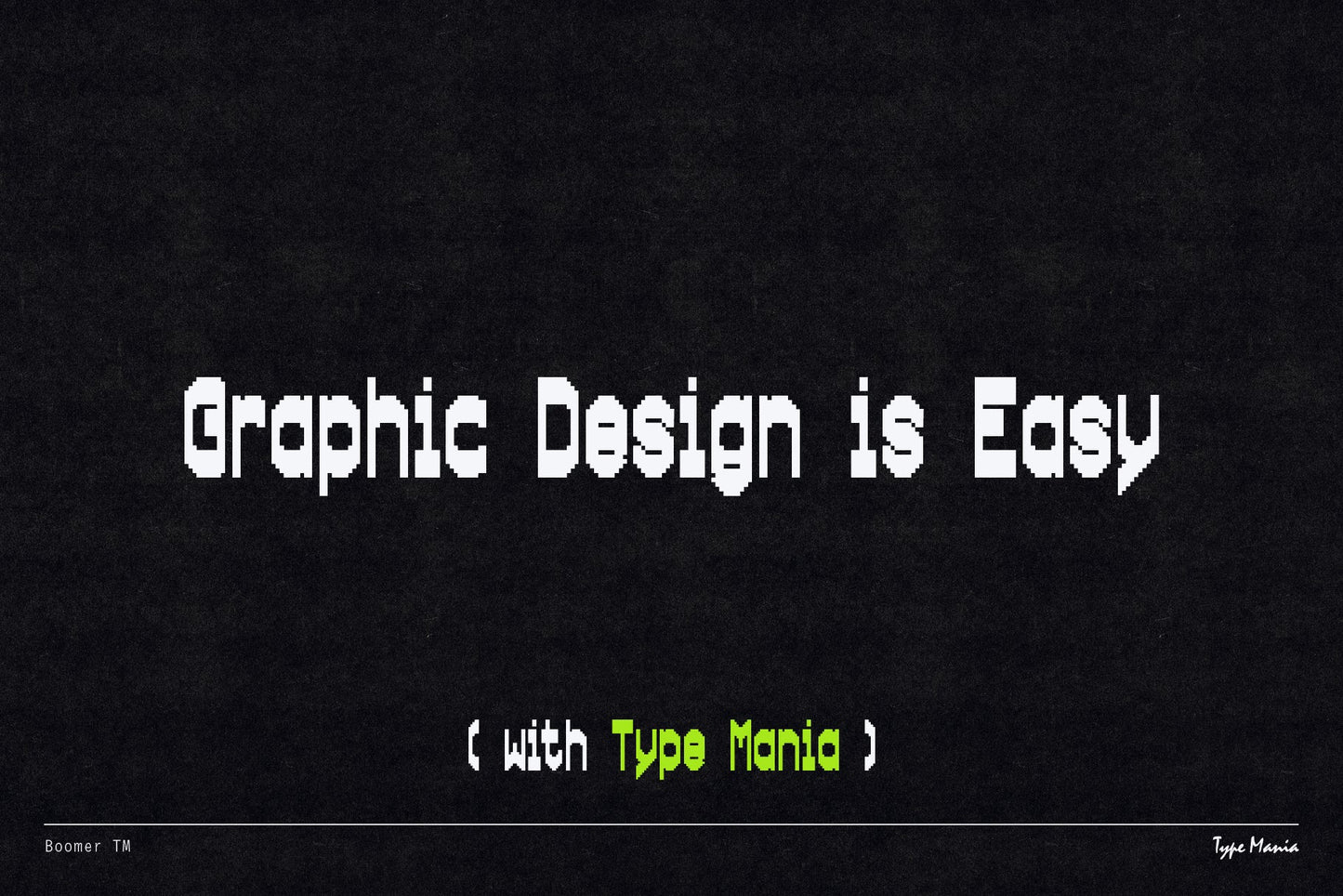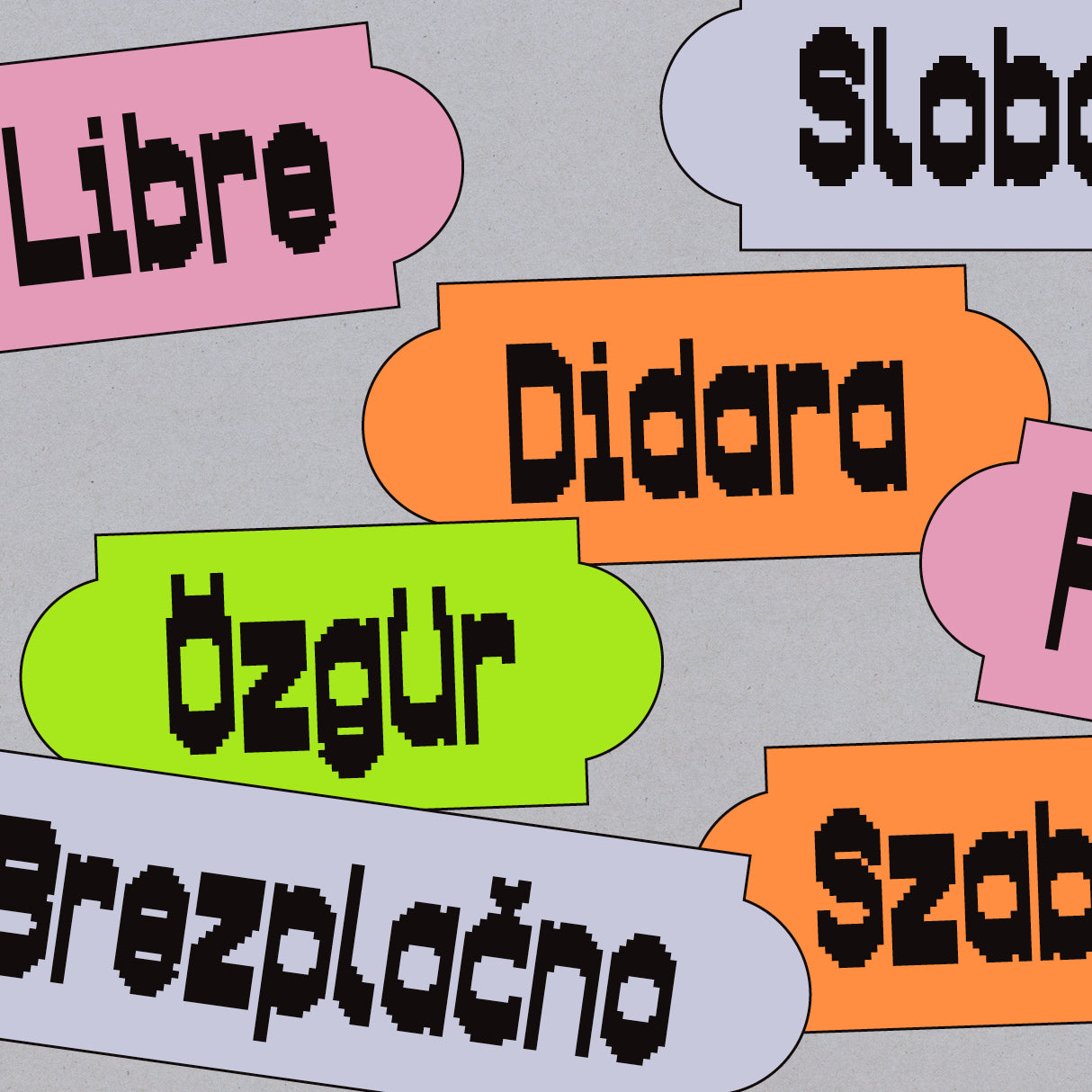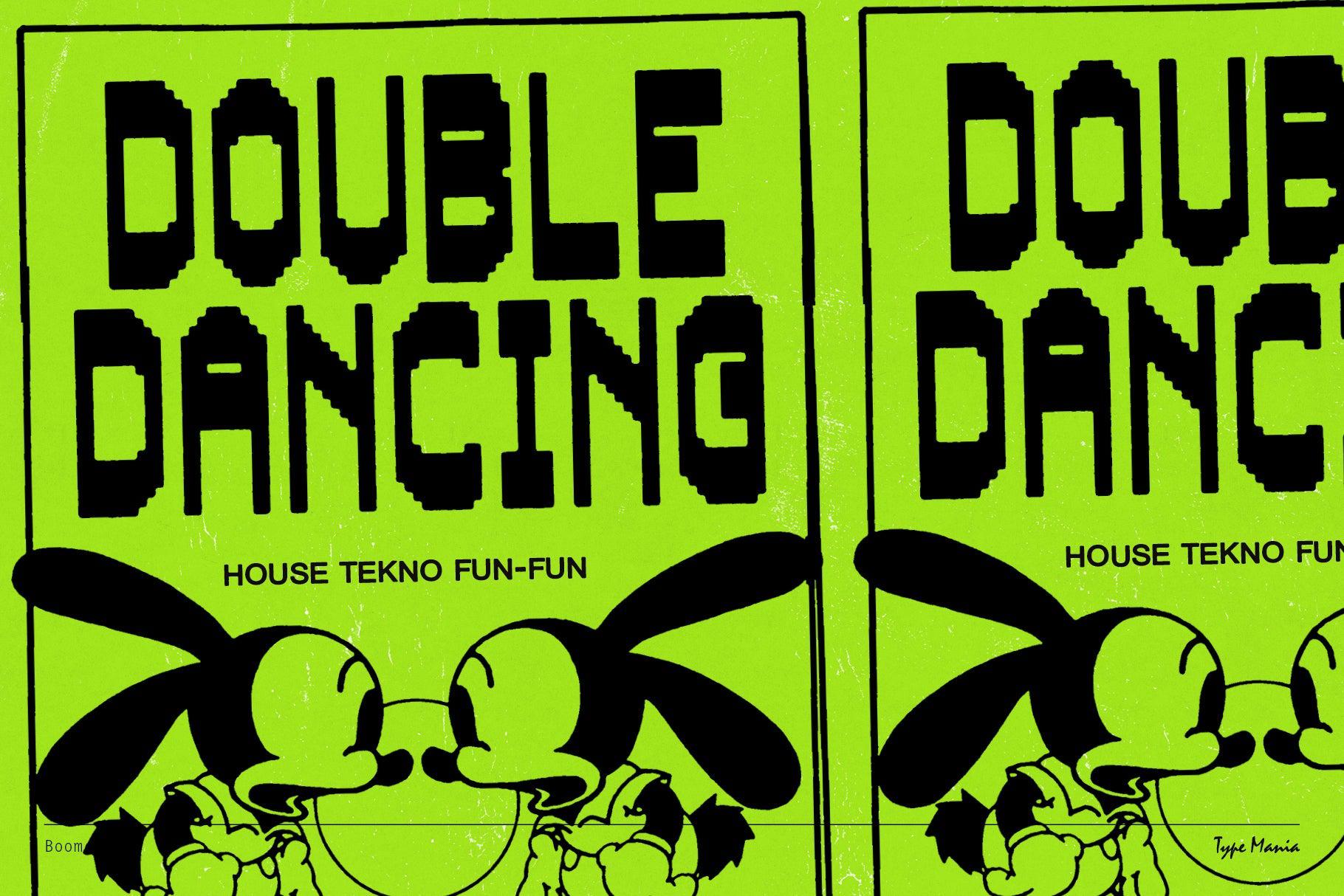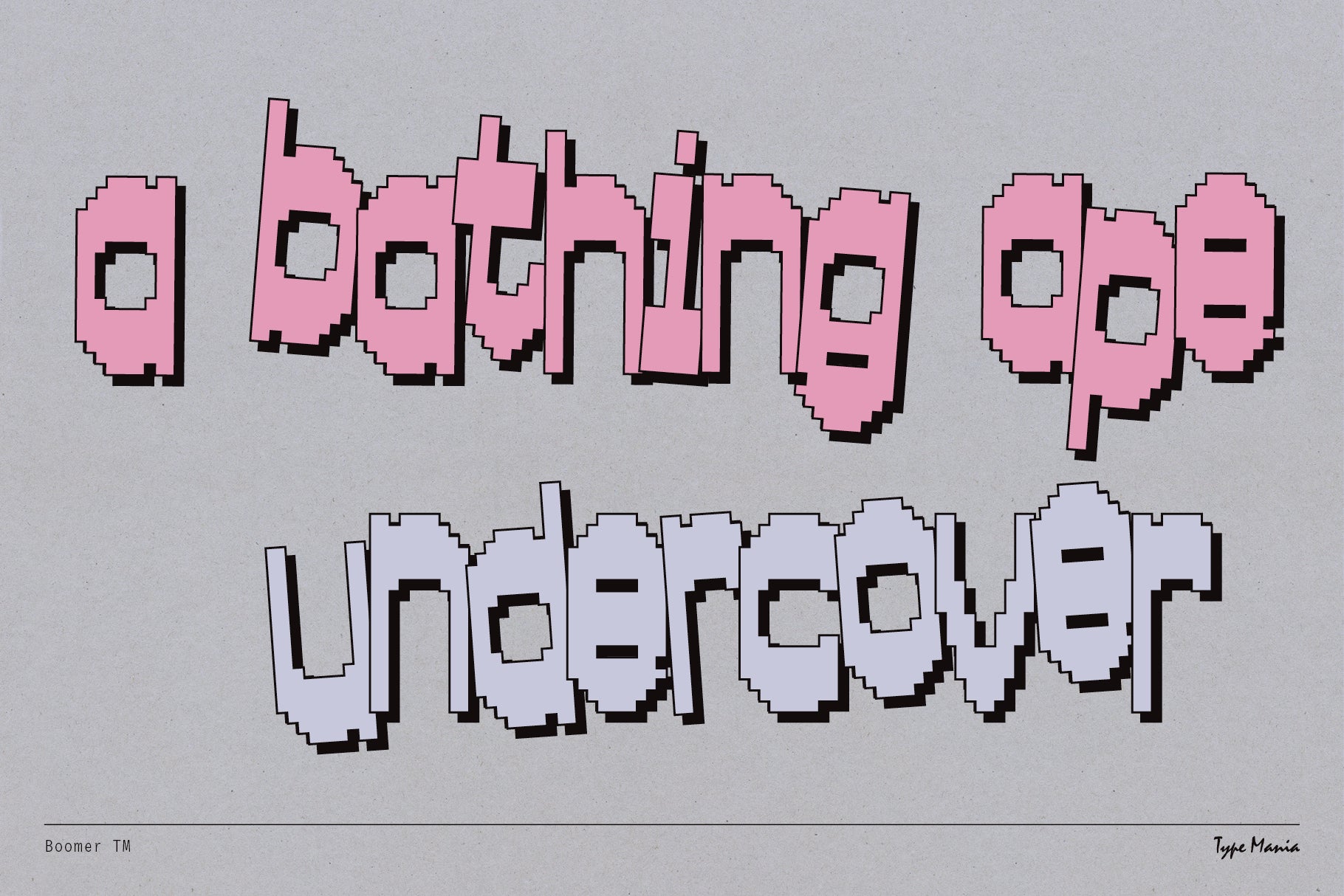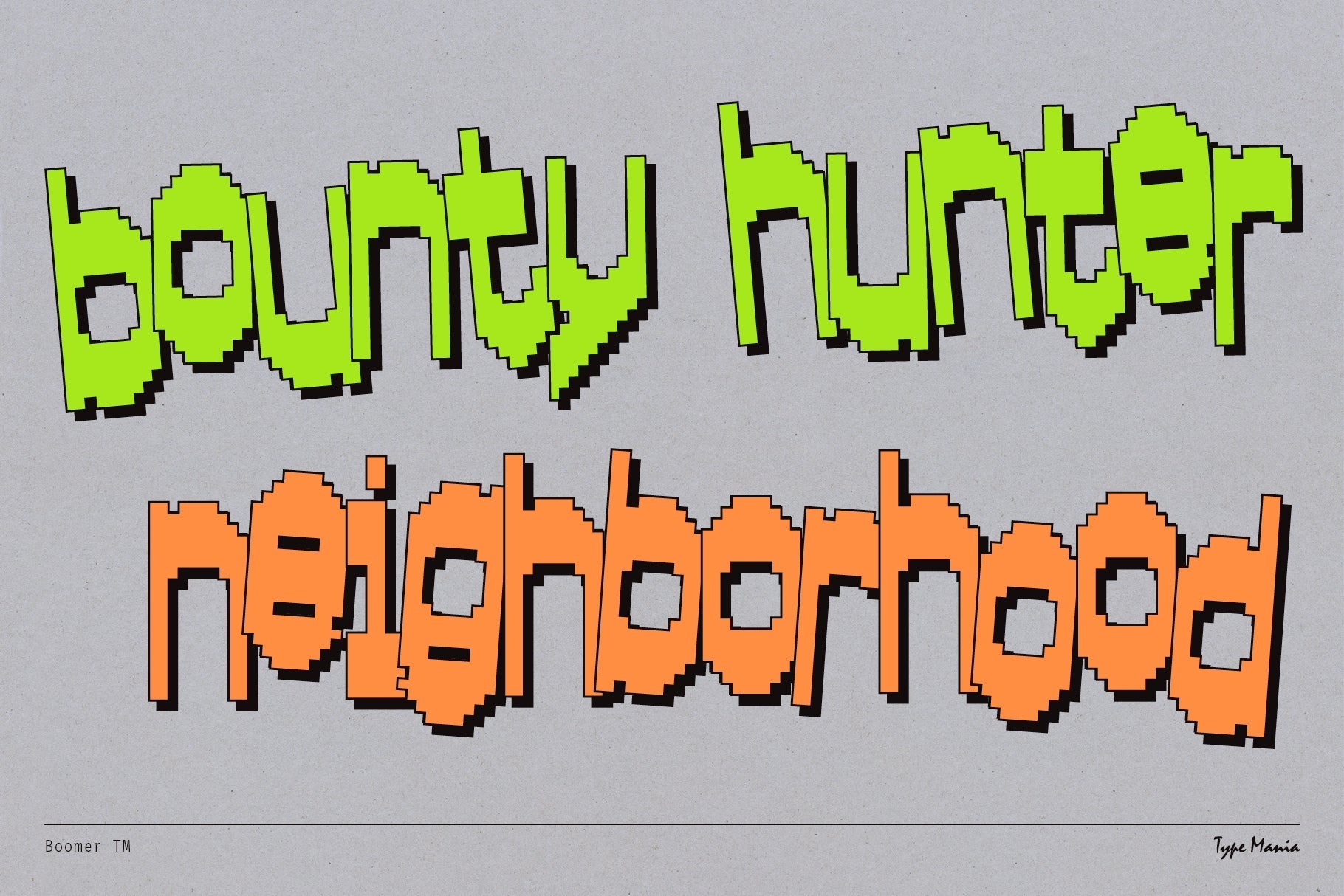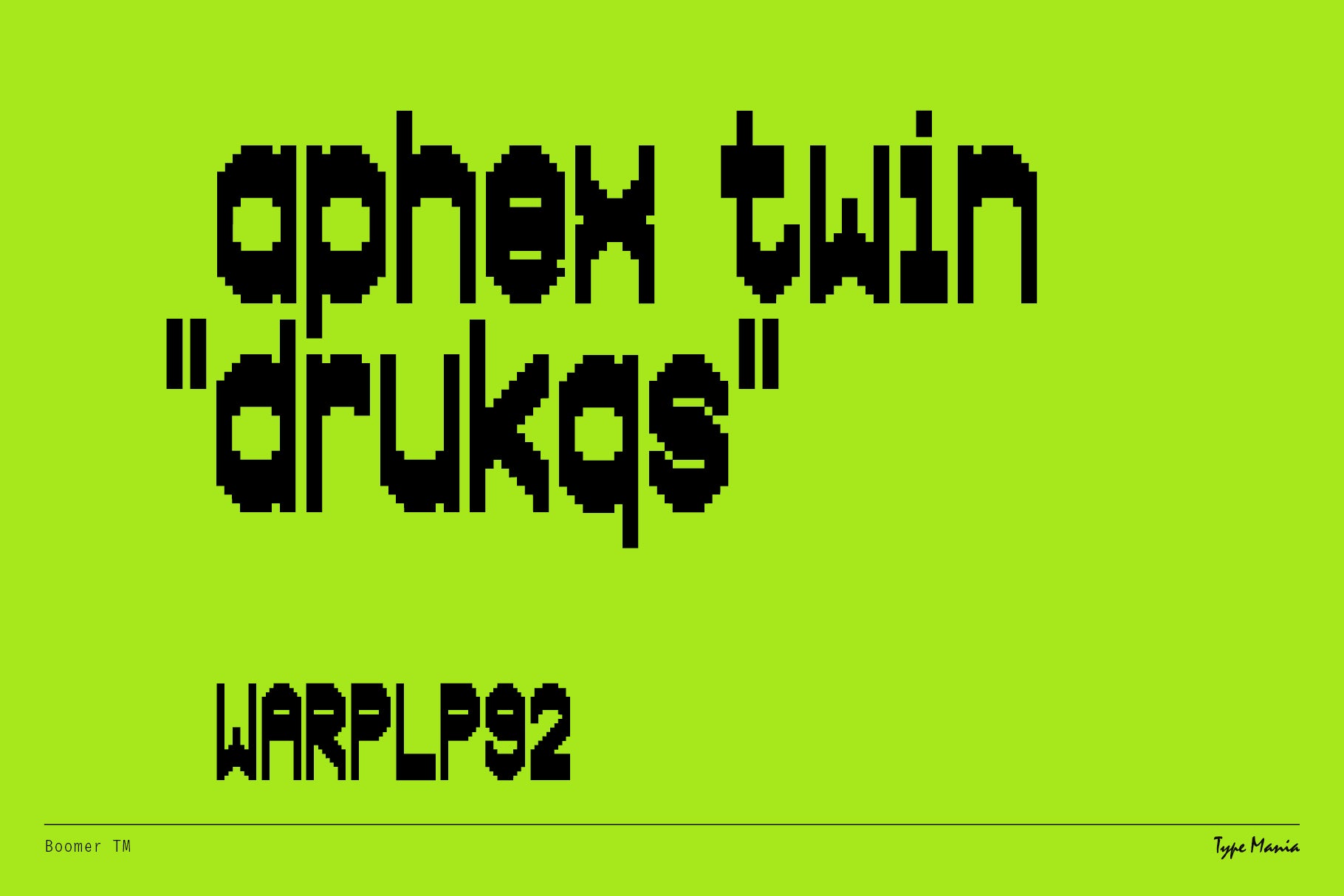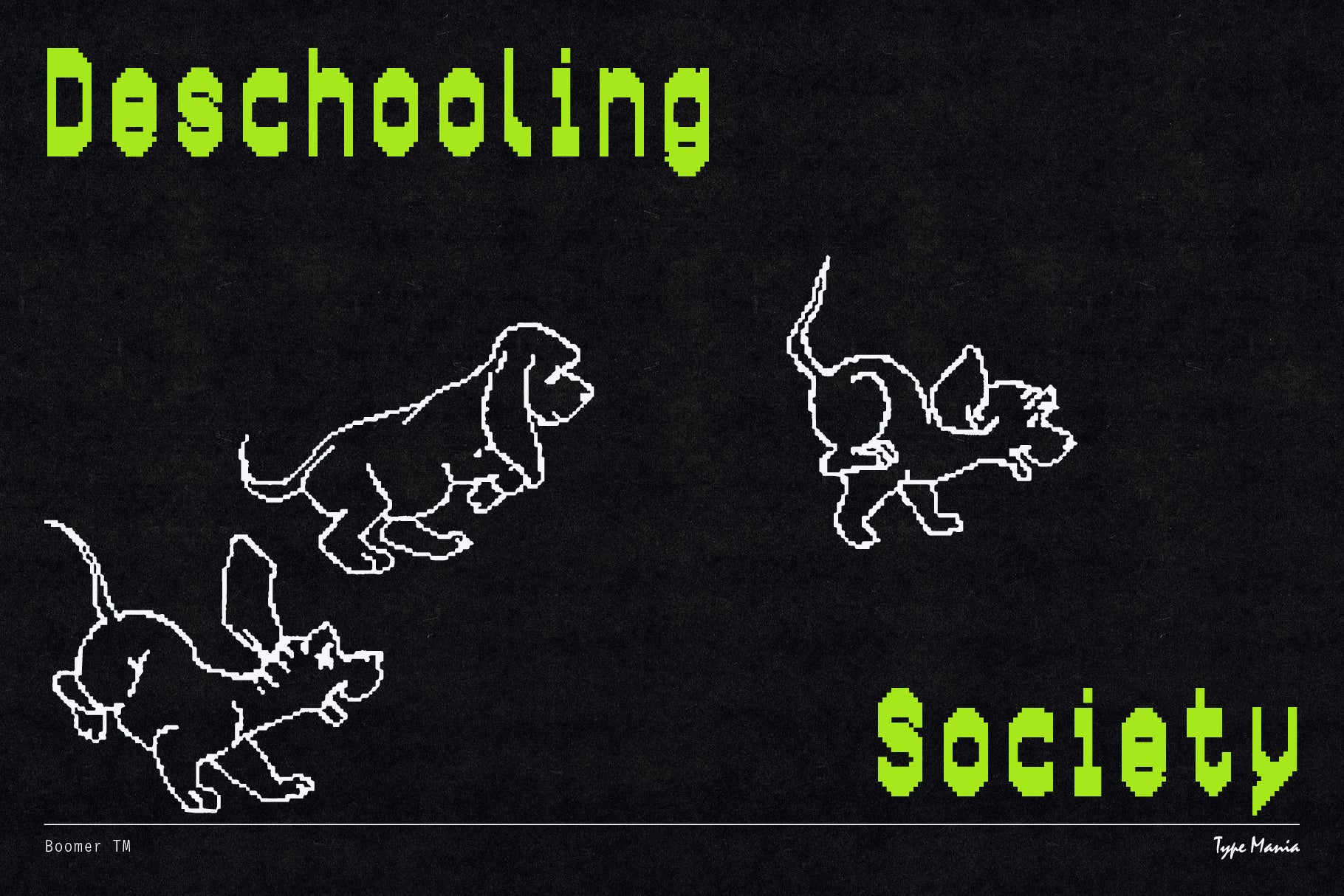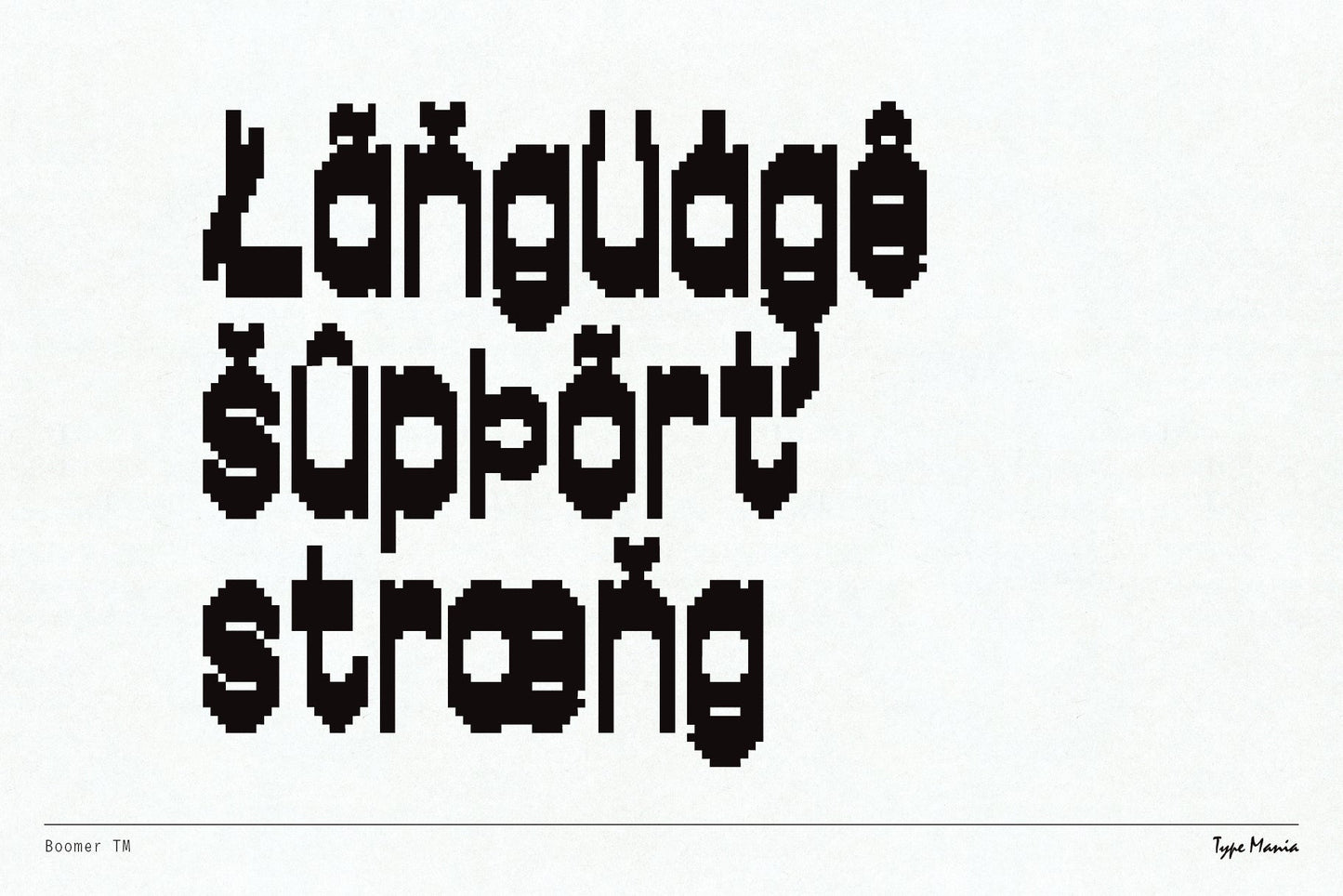
Boomer TM
Get creative with our weird & wonderful pixelated font Boomer TM 🚀 Pixel fonts can get funky, too. Feel free to adjust or customize it to better fit your purposes :))